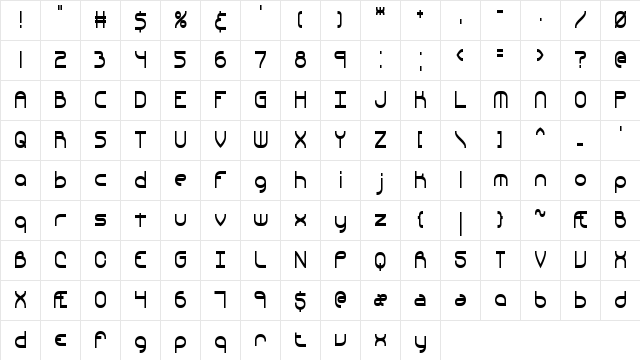
Quacksalver BRK Normal
Designer: ￿IGMA FONTS - Brian Kent
Design Context for Quacksalver BRK
Quacksalver BRK is a composed and adaptable typeface that performs quietly and consistently across a wide range of design contexts.
Pro Tip: Use Quacksalver BRK in both headline and body roles to test its range before committing to a single application.